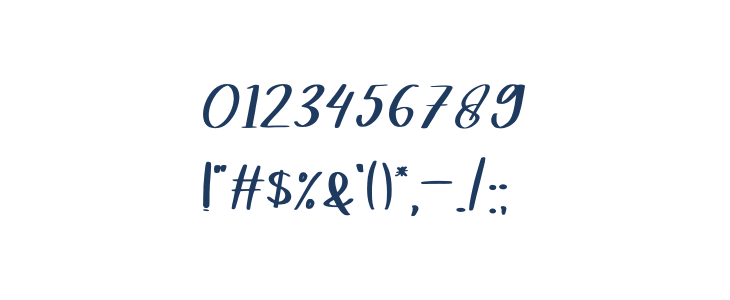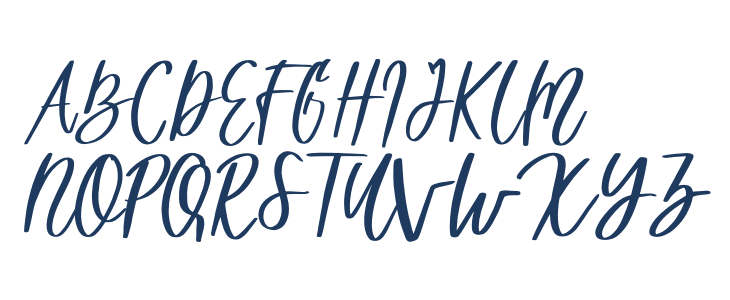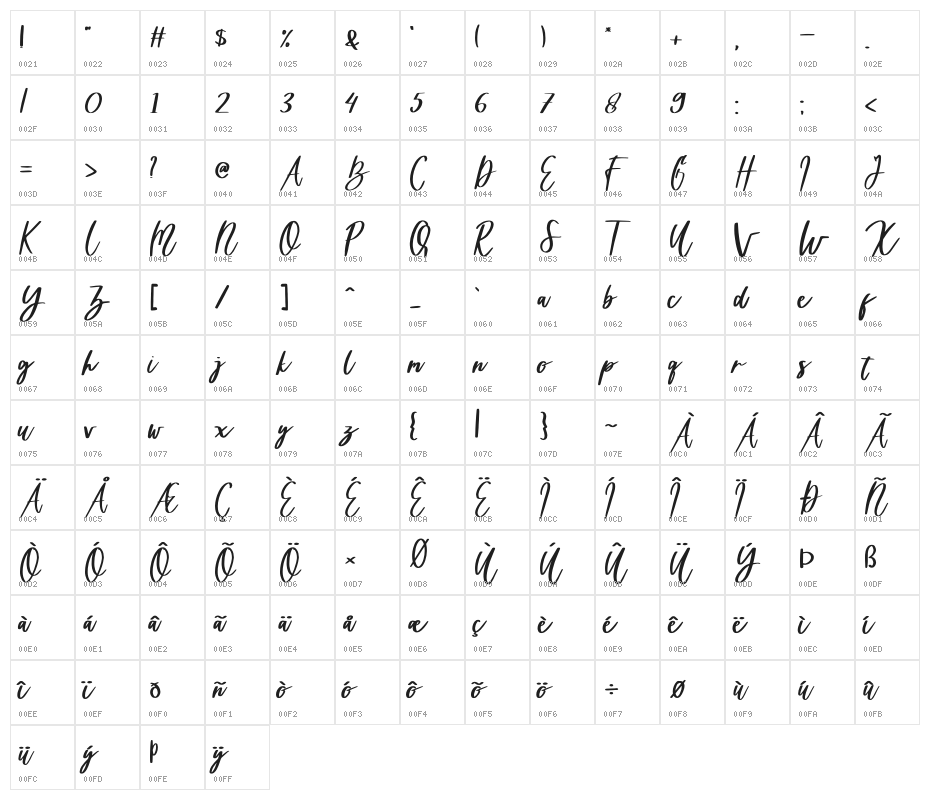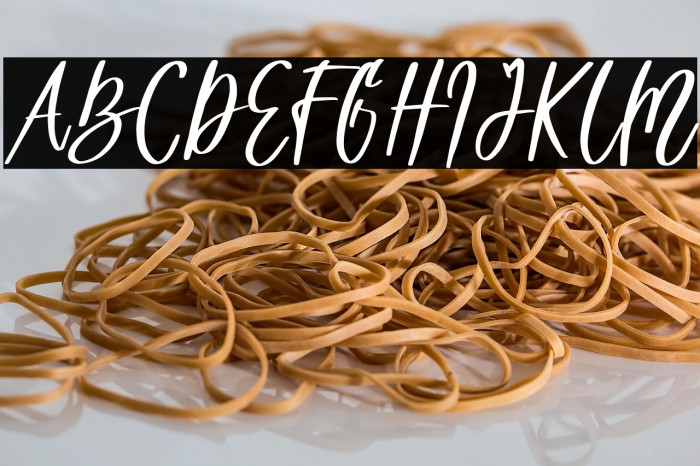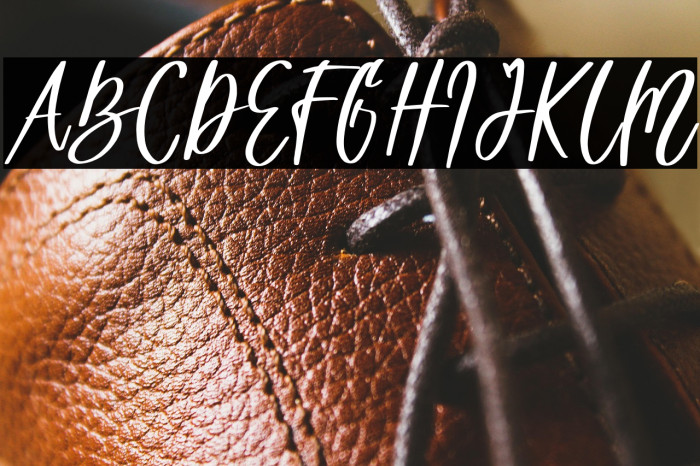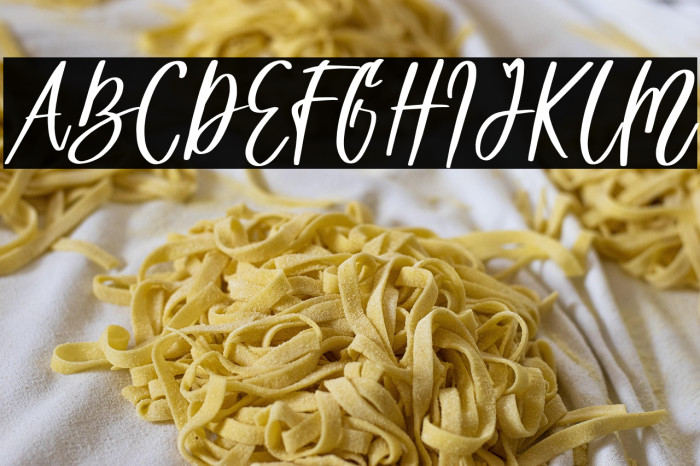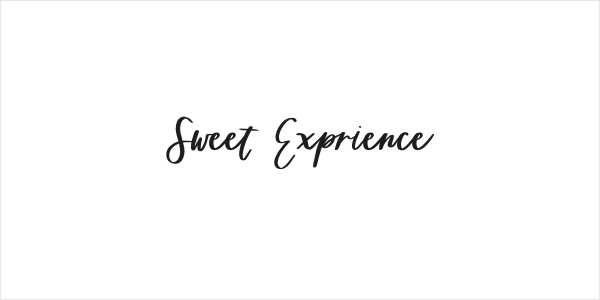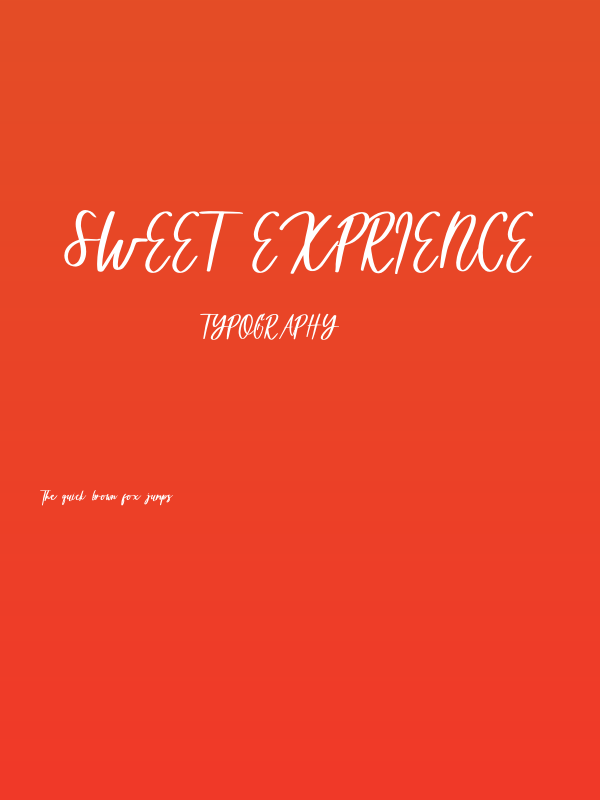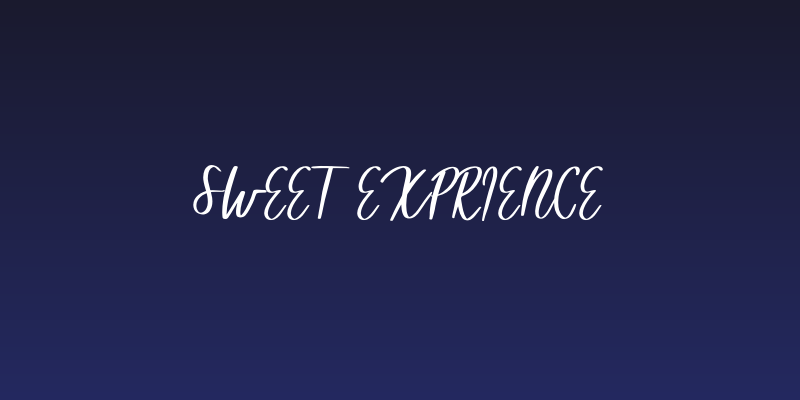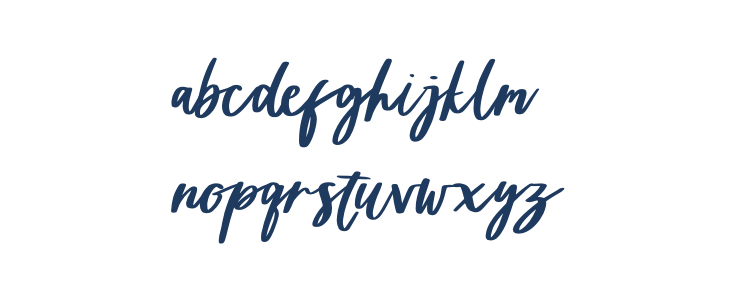
Sweet Exprience Font
Sweet Exprience Description
A playful, flowing script font with a handwritten appearance, featuring connected letters, variable stroke thickness, and a casual, energetic style. The uppercase and lowercase letters are distinct, with some exaggerated loops and flourishes, and the numerals and punctuation maintain the same lively character.
| Overall Style | Decorative, Handwritten, Modern |
| Use Case | Logos, Headlines, Invitations, Social media posts |
| Proposed Projects | Greeting cards, invitations, branding, social media graphics, posters. |